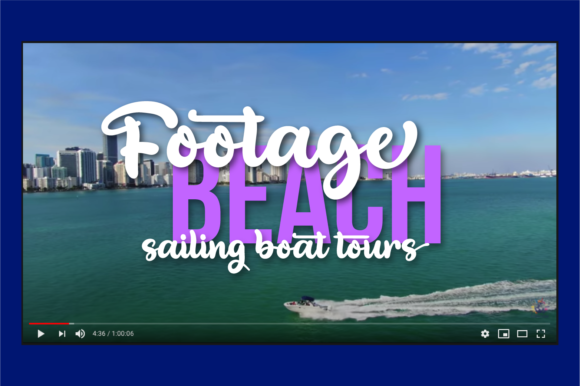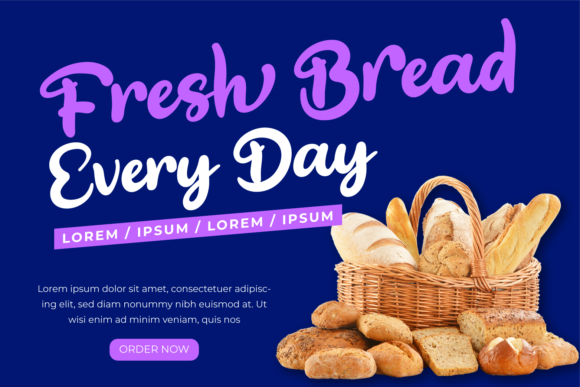
The Princess Font
db-ku.com - Script & Handwritten -- The Princess is a bold and flowing handwritten font. This font reads as strong, confident, and dynamic and can add tons of nostalgic character to your designs.